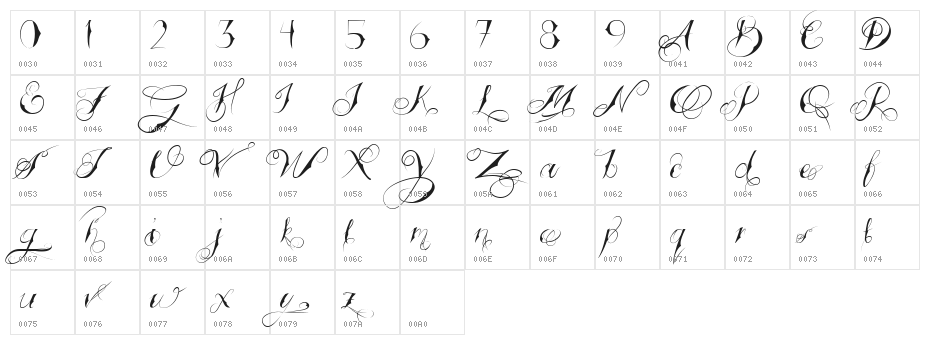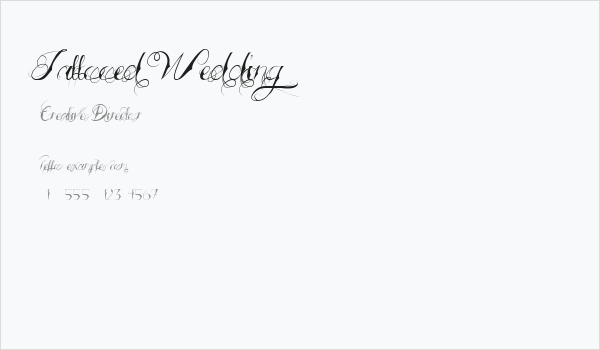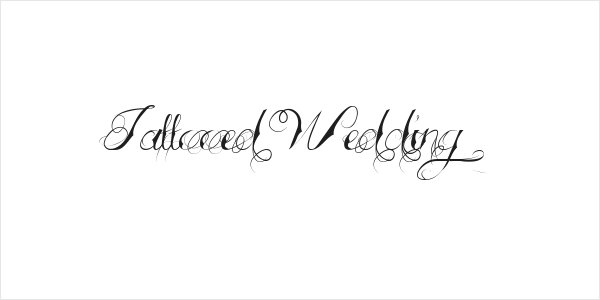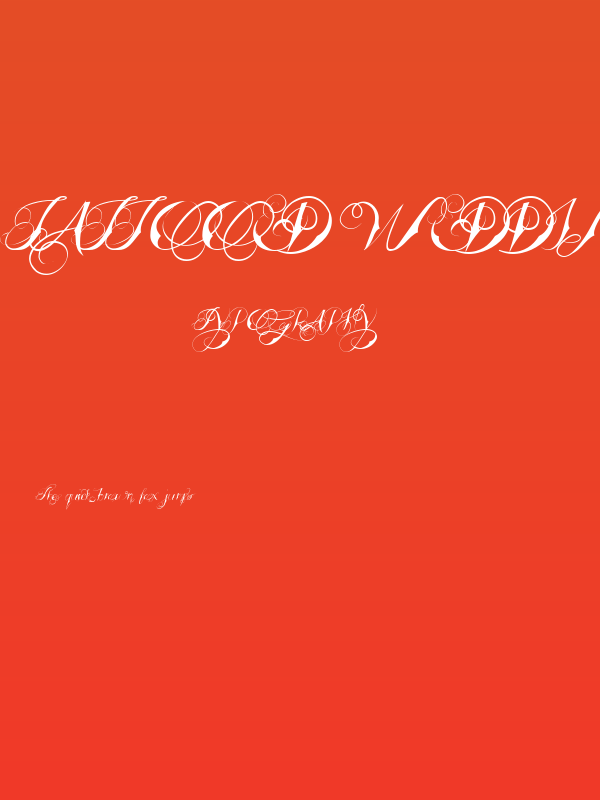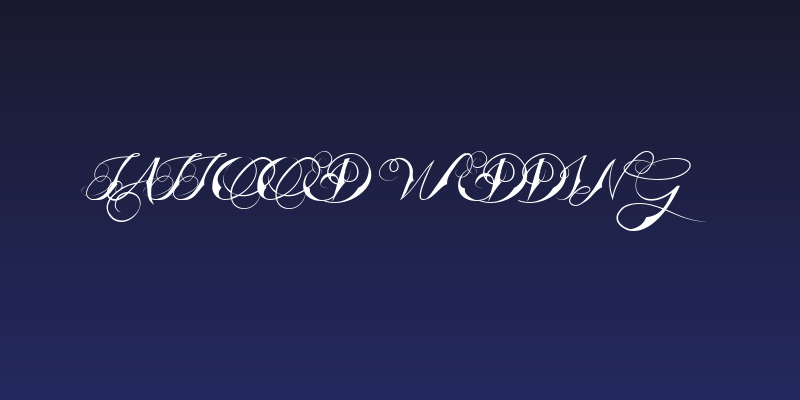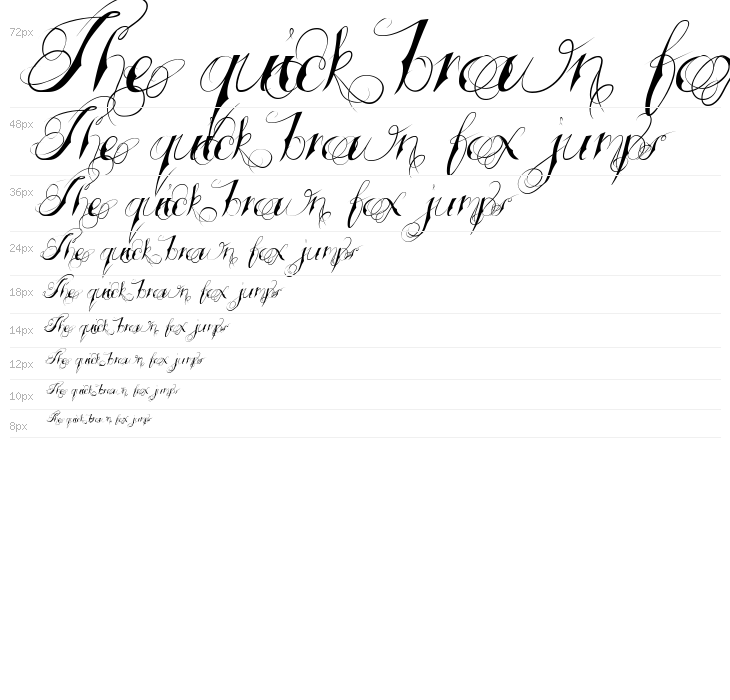
Tattooed Wedding Font
Tattooed Wedding Description
This font is an elaborate and ornate script style, characterized by its flowing, interconnected letters and intricate swashes. The uppercase letters are particularly decorative, with exaggerated loops and flourishes that give a sense of elegance and sophistication. The lowercase letters maintain a consistent style, with smooth curves and a slightly slanted orientation. Numbers are designed with a similar flair, featuring sharp contrasts between thick and thin strokes. The overall appearance is reminiscent of calligraphy, making it suitable for formal and decorative purposes.
| Proposed Projects | Ideal for wedding invitations, elegant branding, decorative certificates, and artistic projects requiring a touch of sophistication. |